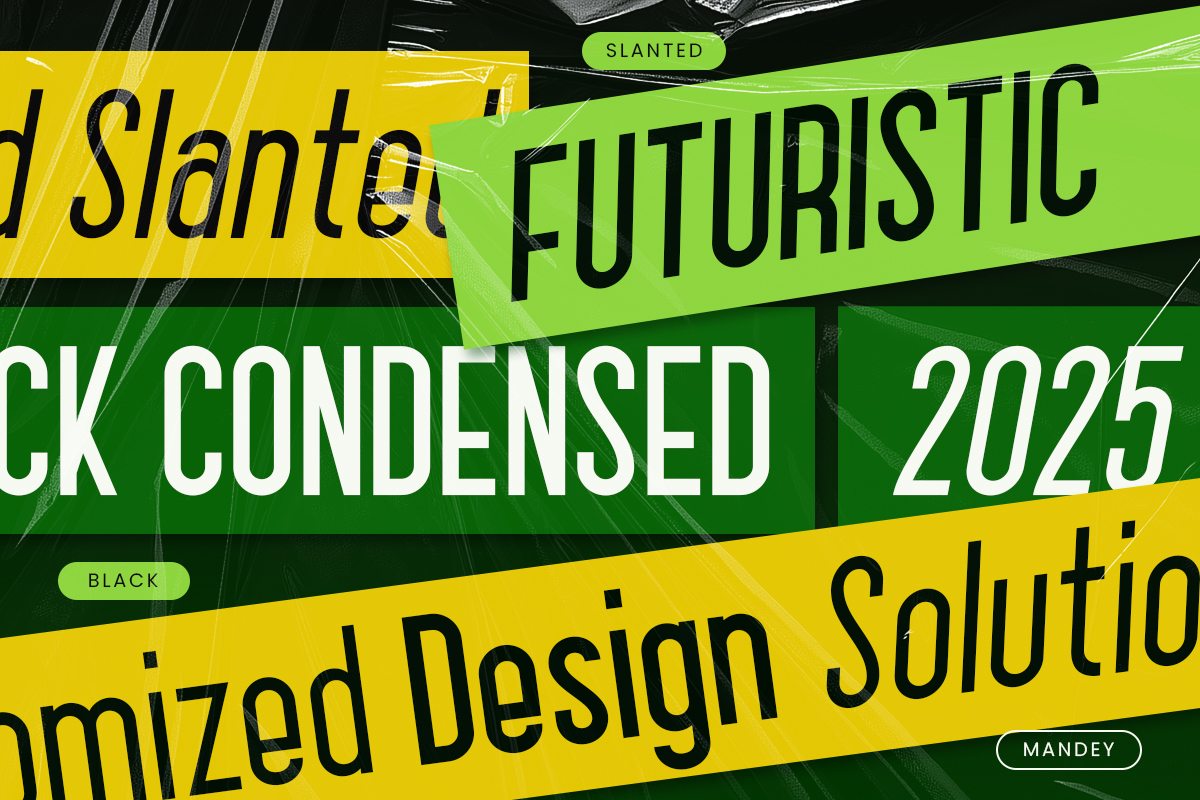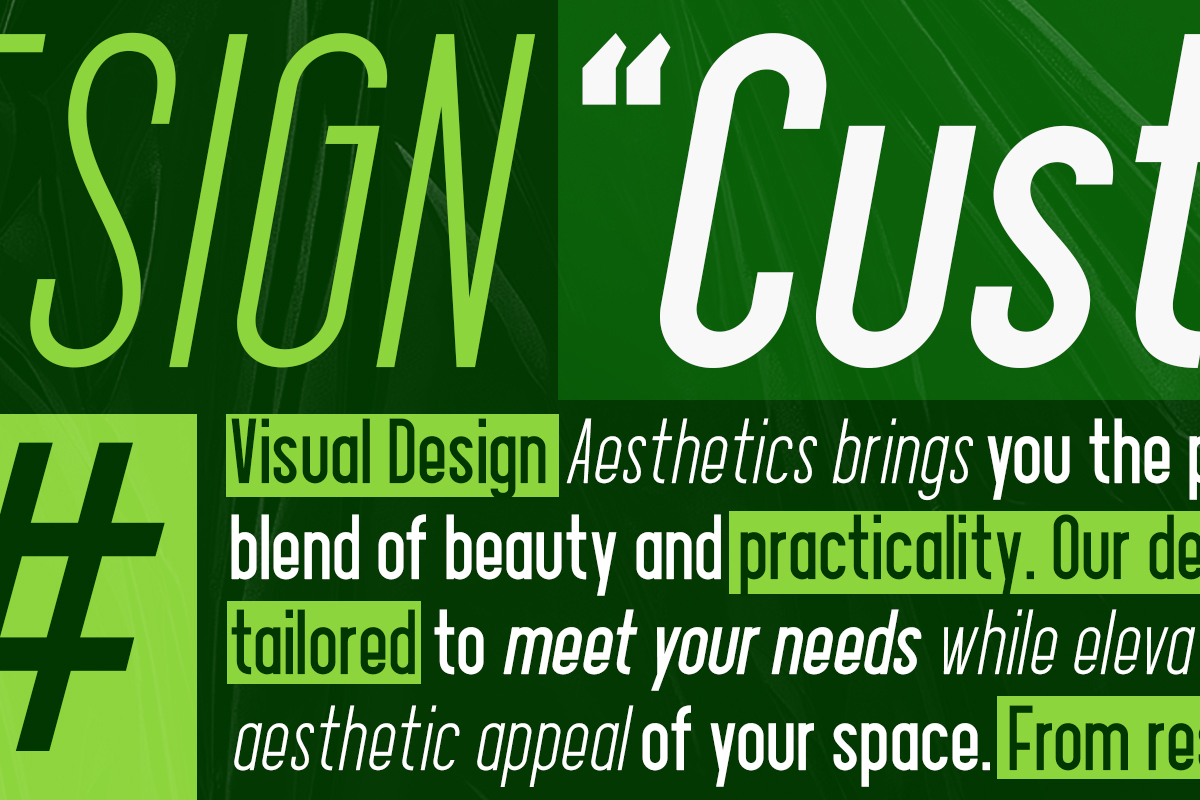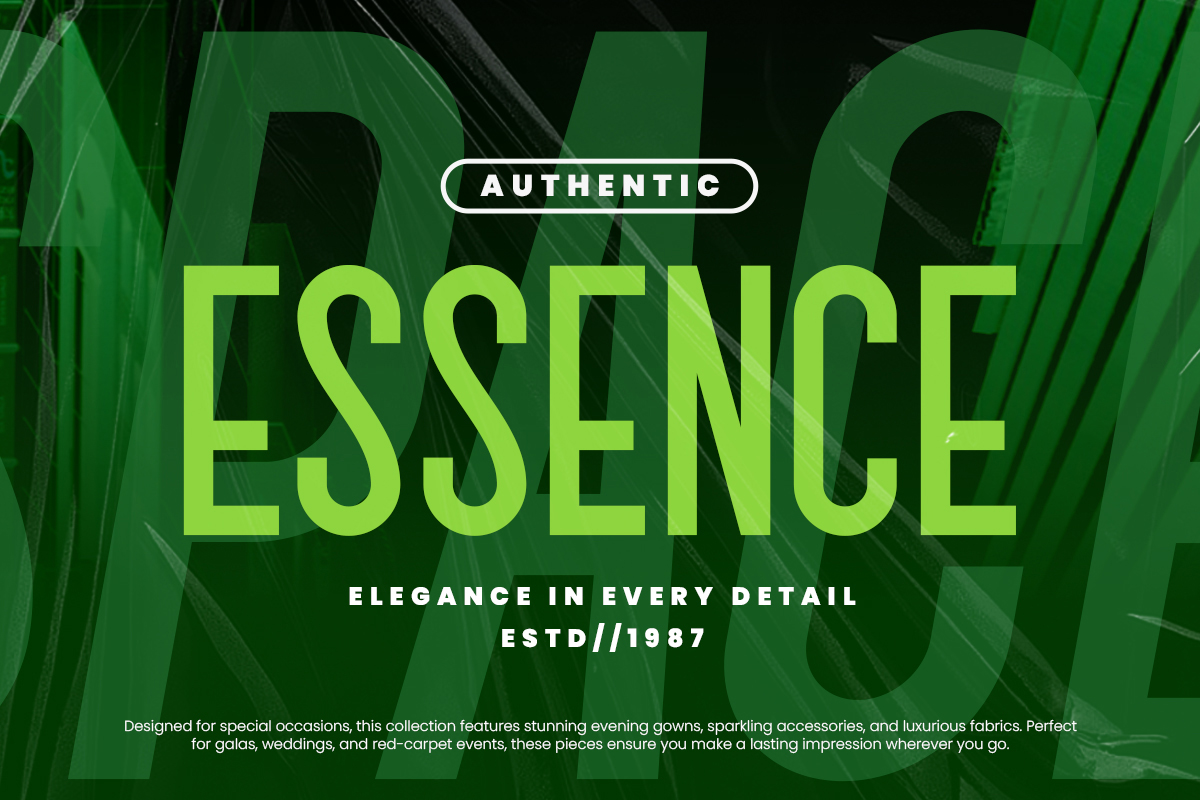
Mandey – Modern Font Family is a sleek and versatile modern condensed font family designed for maximum impact and flexibility. With a full range of weights from Thin to Black, including matching Slant styles, Mandey adapts effortlessly to both bold headlines and elegant subtext.